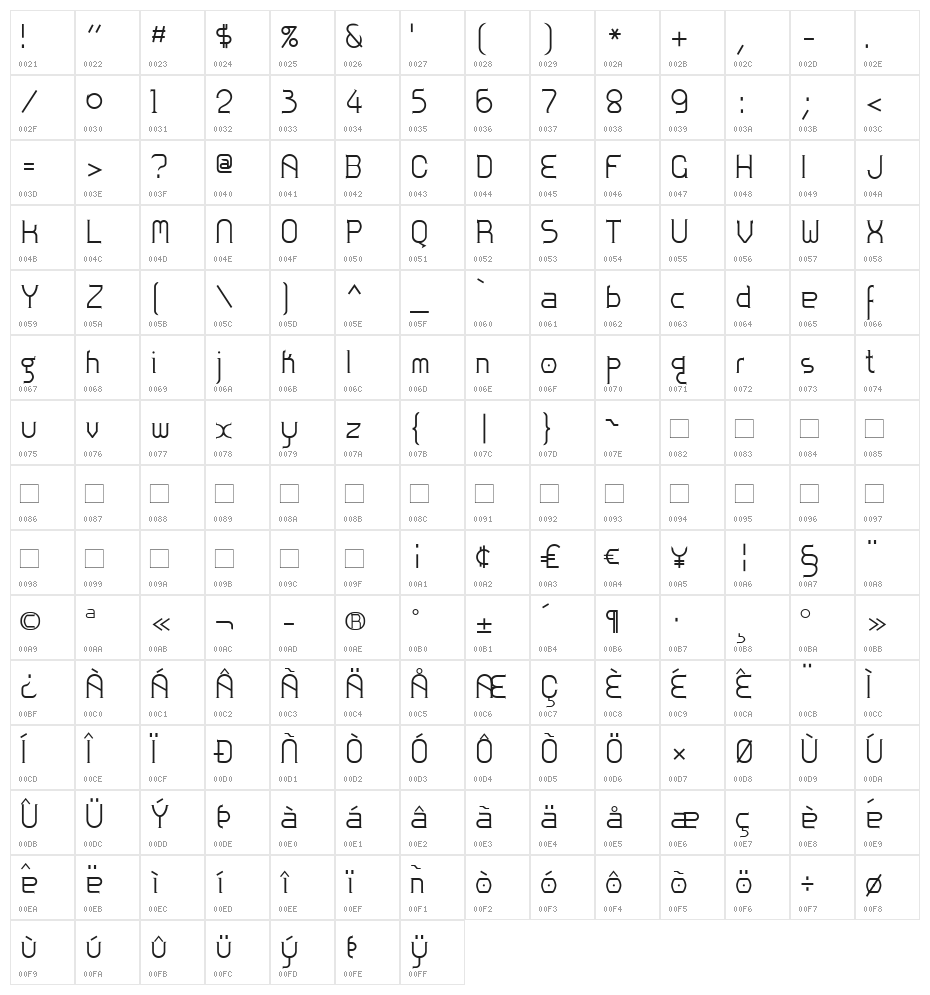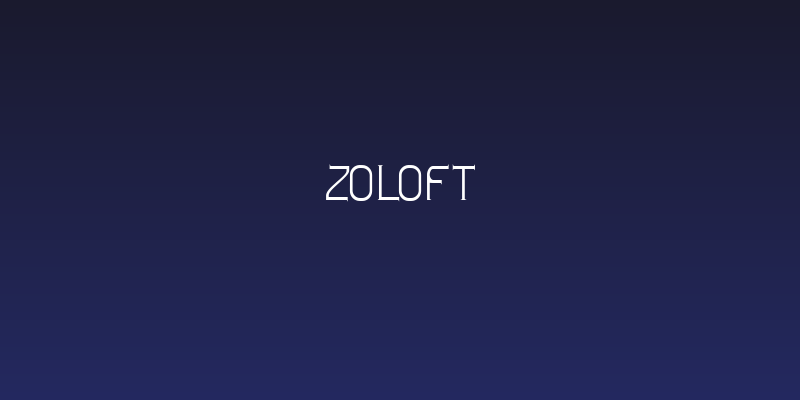
Zoloft Font
Zoloft Description
This font features a unique and modern design with geometric elements and a futuristic feel. The uppercase letters are characterized by their angular forms and consistent line thickness, while the lowercase letters maintain a similar style with a slightly softer touch. The numerals are distinct and easily readable, following the same geometric principles. Special characters are well-integrated, maintaining the overall aesthetic. The font's clean lines and structured appearance make it suitable for a variety of design applications.
| Overall Style | Futuristic |
| Proposed Projects | Ideal for technology branding, modern advertising, futuristic posters, and digital interfaces. |